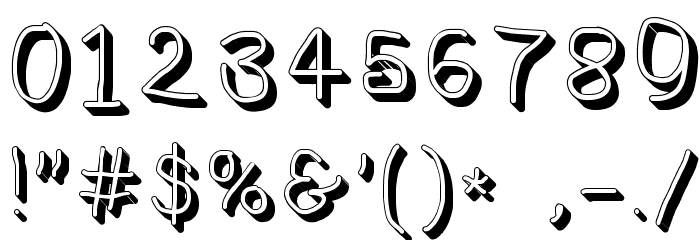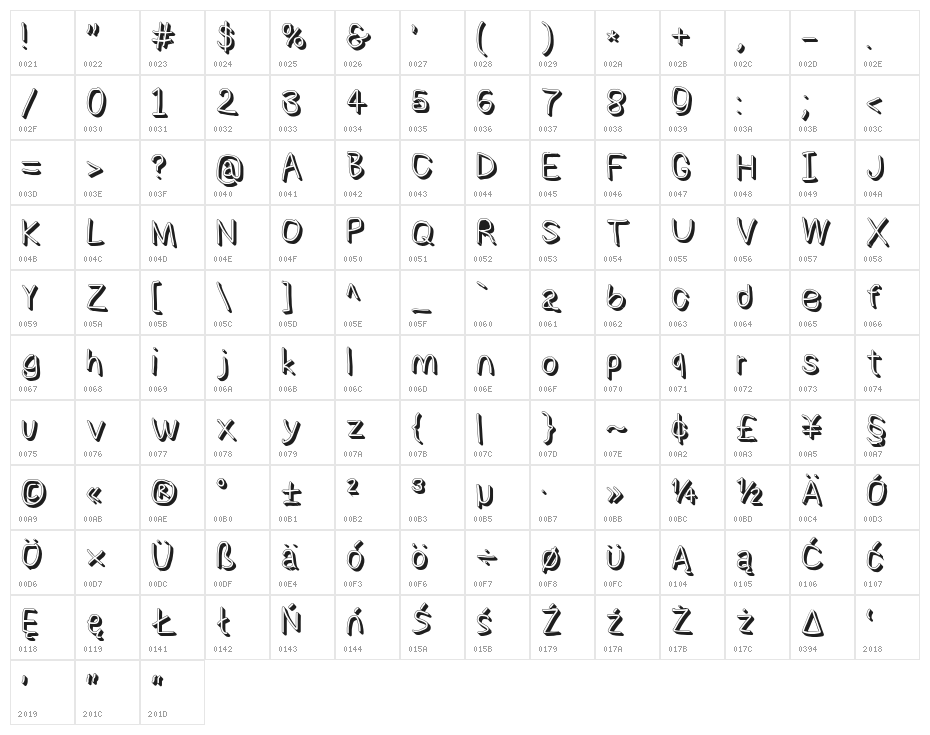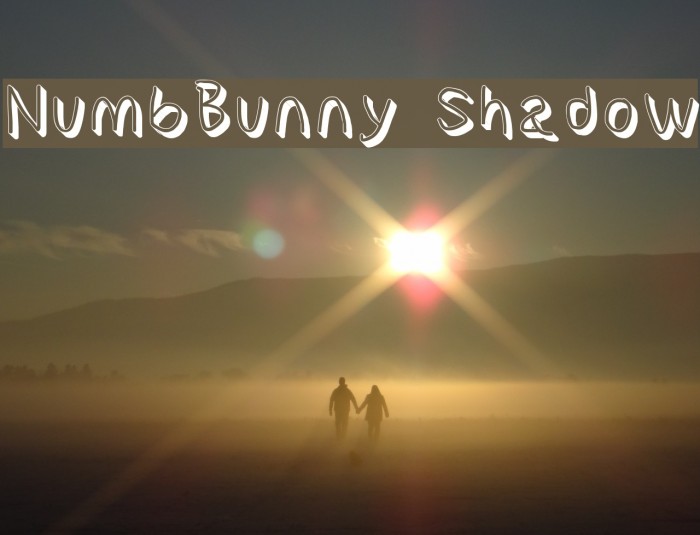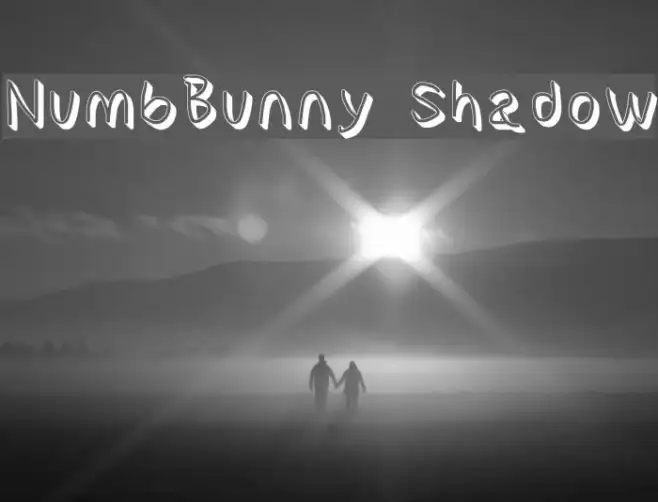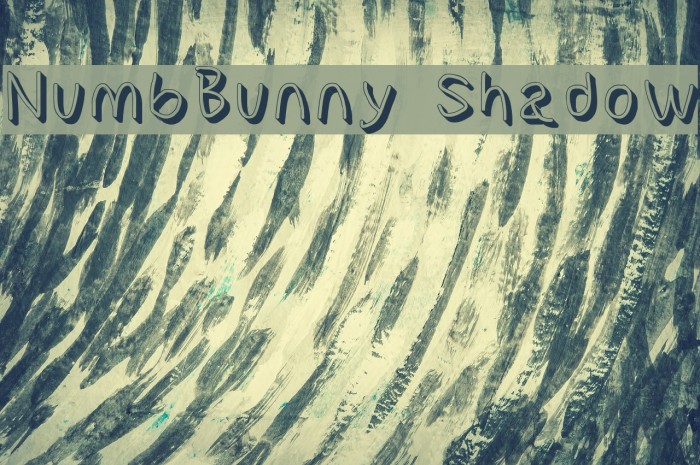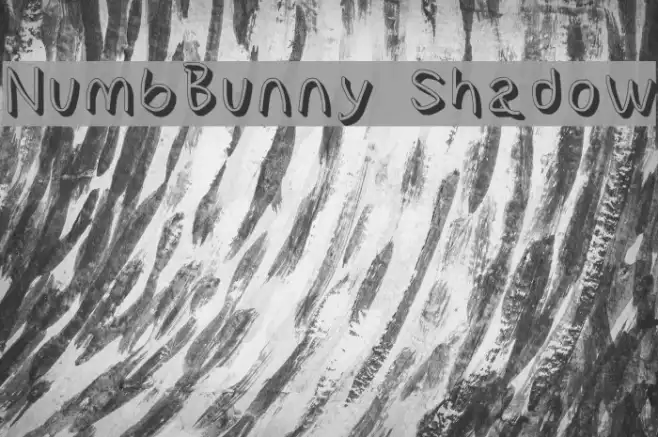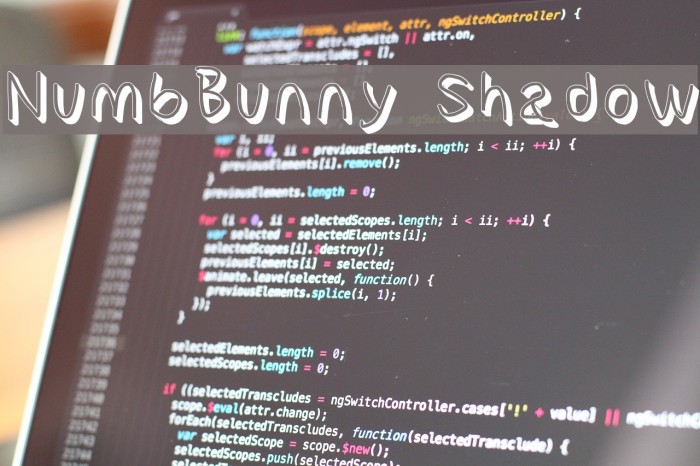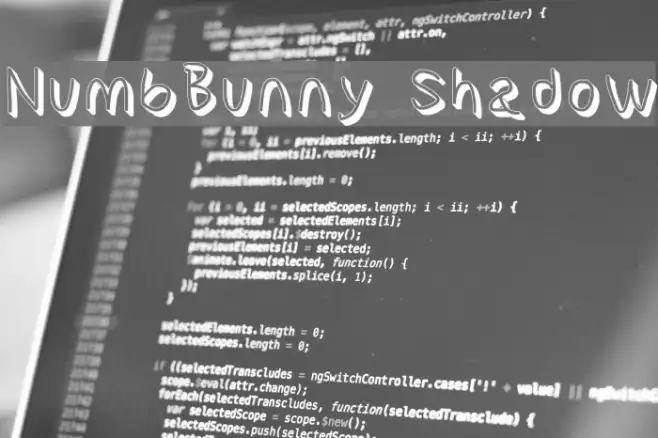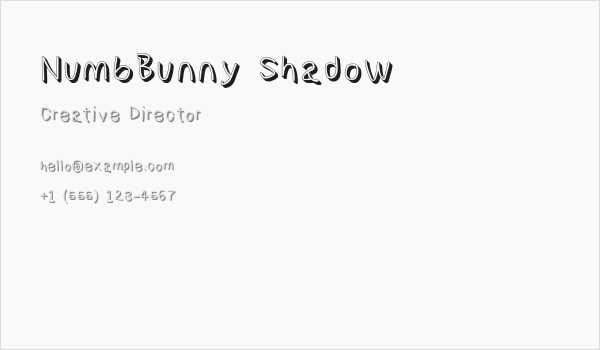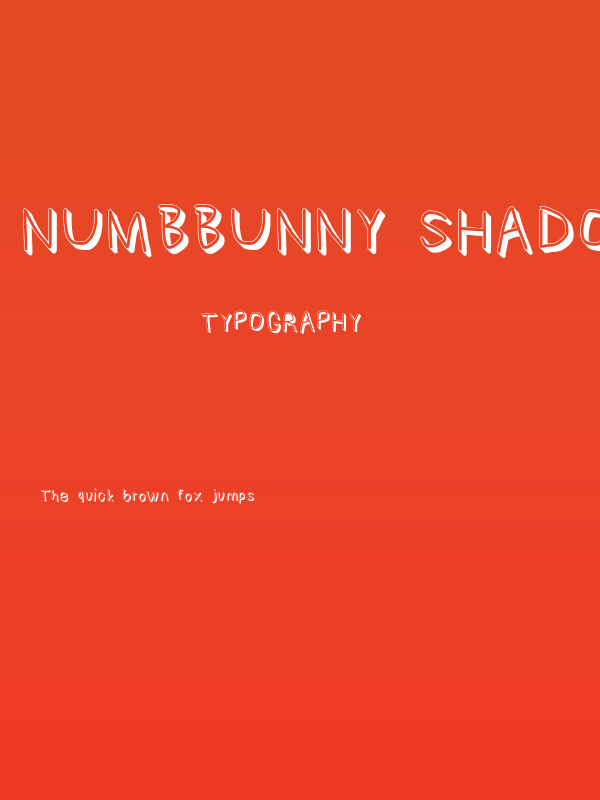
NumbBunny Shadow Font
NumbBunny Shadow Description
This playful and bold font features a unique shadow effect that gives it a three-dimensional appearance. The characters are crafted with a casual, hand-drawn style, making them perfect for projects that require a fun and informal touch. The uppercase and lowercase letters maintain a consistent style, with rounded edges and a slightly irregular form that adds to the charm. The numerals and special characters are equally expressive, ensuring a cohesive look across all text elements. The shadow effect enhances the visual impact, making it suitable for eye-catching designs.
| Overall Style | Playful, Casual, Fun |
| Proposed Projects | Ideal for children's books, playful branding, posters, and creative invitations. |